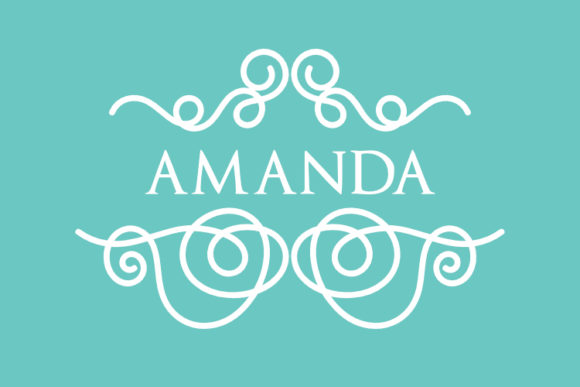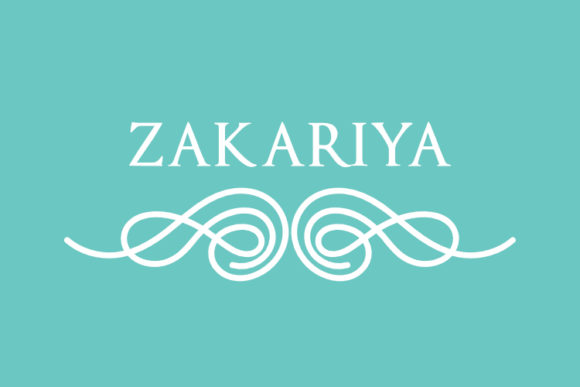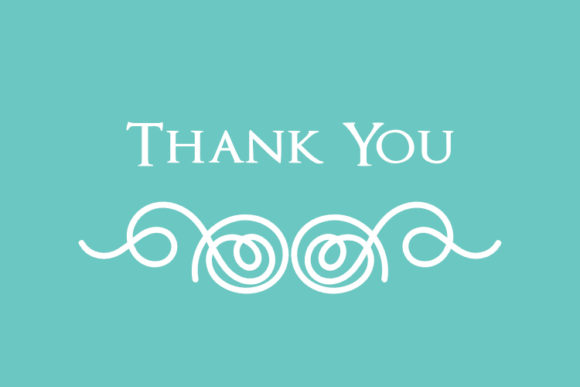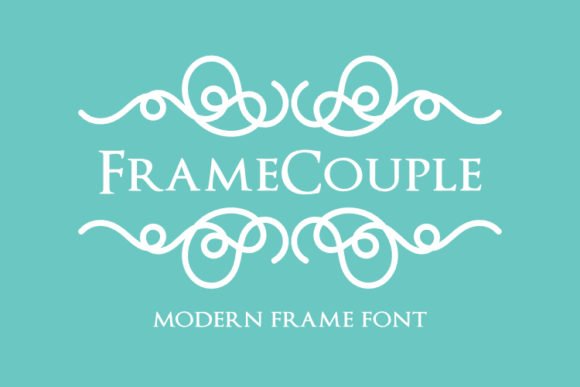
Introduction to Framecouple Font
Create ornament and beautiful designs easily with Framecouple, artfully crafted for use in any type of creative project.
Simply use capital letters to view the frames .
Framecouple Font offers exceptional quality and versatility, making it a valuable addition to your design toolkit. Whether you’re creating for personal projects or commercial use, Framecouple Font delivers professional results.